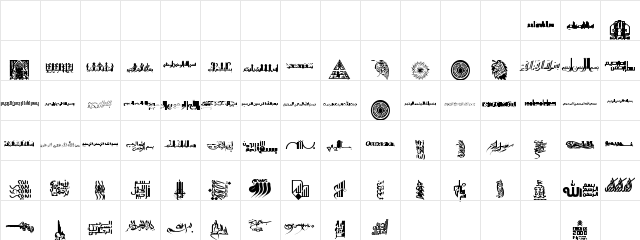
Besmellah 4 Regular
Design Context for Besmellah 4 Typeface
Besmellah 4 is a composed and adaptable typeface that performs quietly and consistently across a wide range of design contexts.